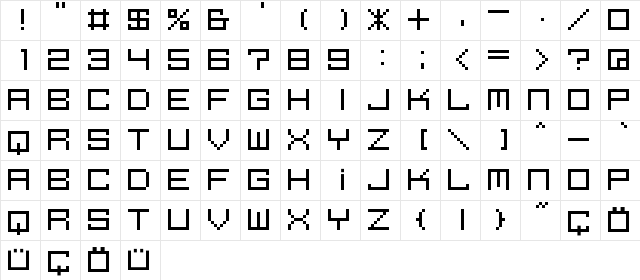
M39_SQUAREFUTURE Regular Free Font
M39_SQUAREFUTURE Regular
Design Context for M39_SQUAREFUTURE
M39_SQUAREFUTURE has a distinctly futuristic character, with geometric precision and clean angles that feel at home in technology, gaming, and sci-fi contexts.
Pro Tip: Try M39_SQUAREFUTURE with generous letter-spacing in UI labels and navigation - the geometric forms benefit from room to breathe.